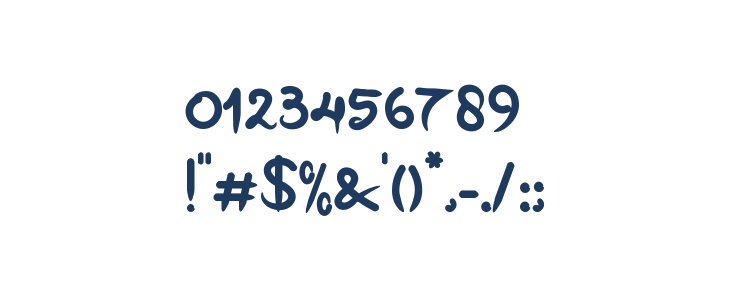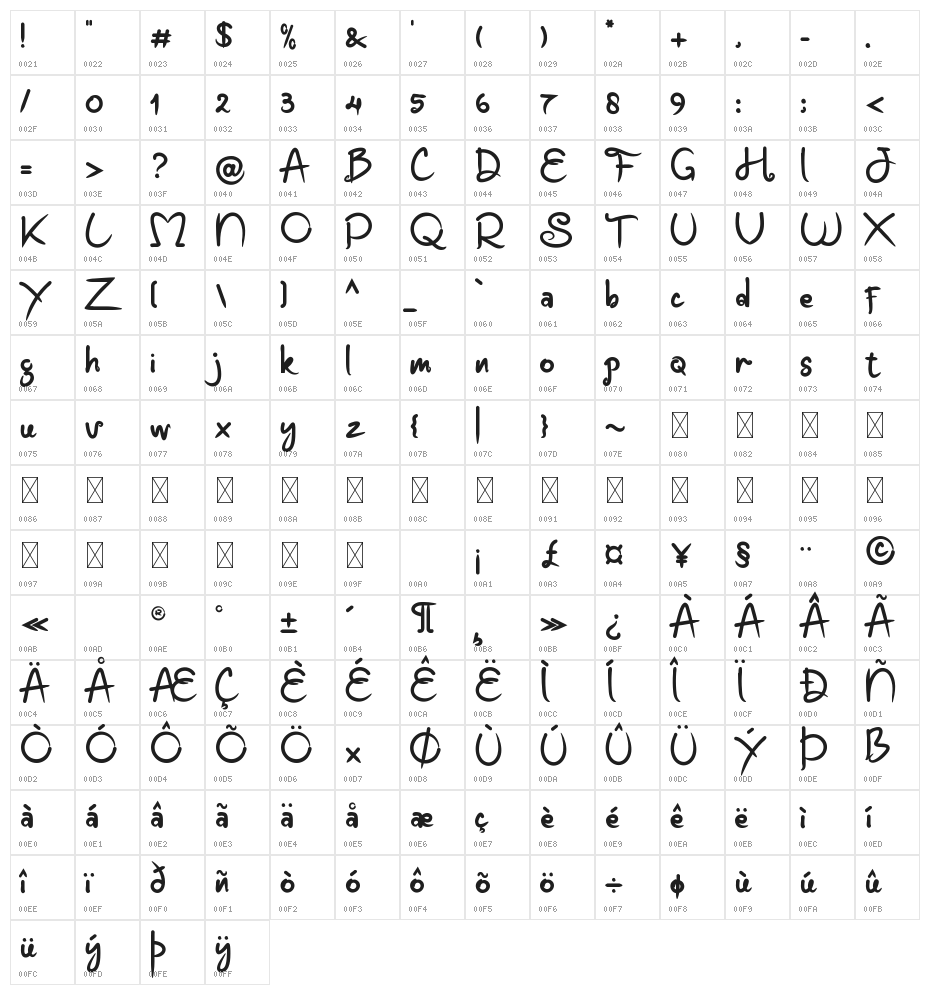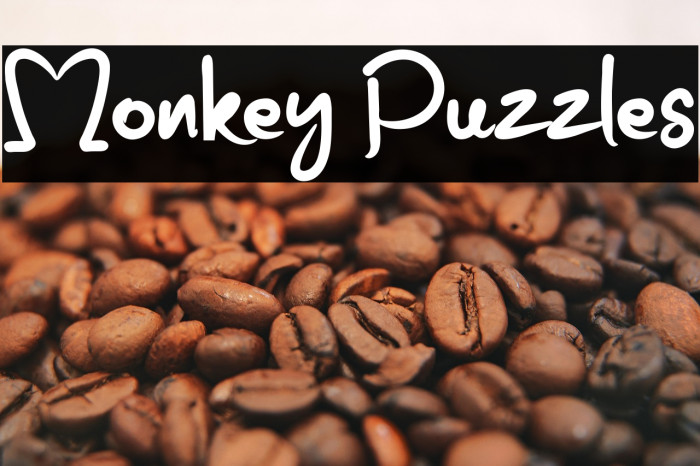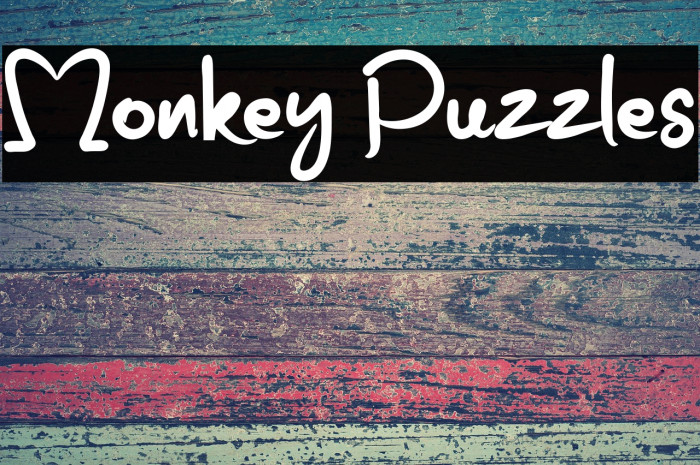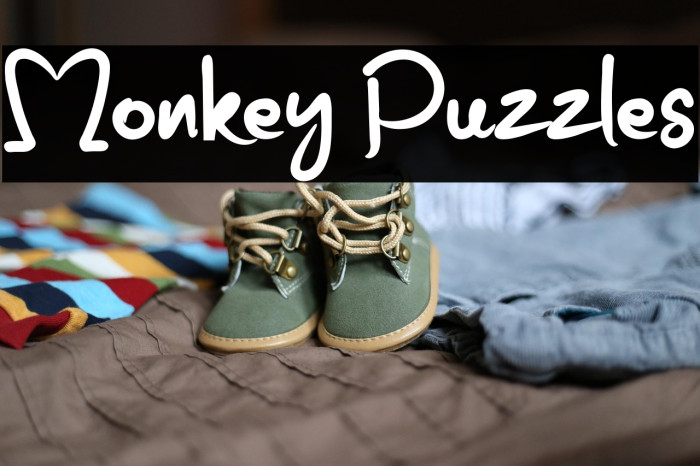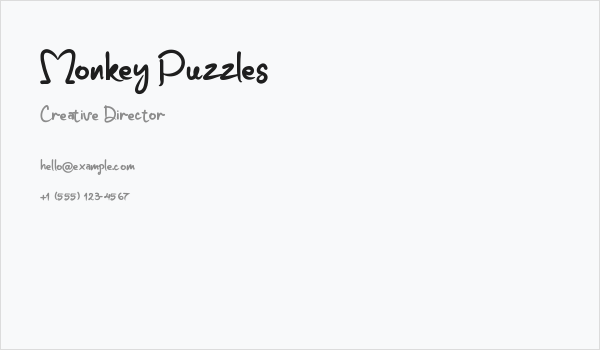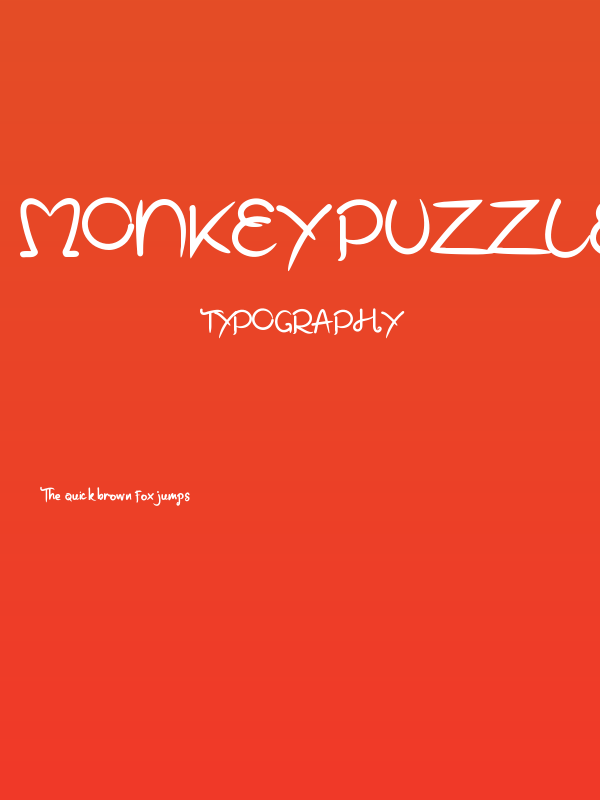
Monkey Puzzles Font
Monkey Puzzles Description
This playful and whimsical font features a lively, handwritten style with a unique flair. The uppercase letters are characterized by their tall, narrow forms and slightly exaggerated curves, giving them a dynamic and energetic appearance. The lowercase letters maintain this playful aesthetic, with some letters featuring loops and swirls that add to the overall charm. The numbers are bold and consistent with the font's lively style, making them easily readable. Special characters are creatively designed, maintaining the font's quirky and fun personality. This font is perfect for projects that require a touch of creativity and playfulness, such as children's books, playful branding, or artistic posters.
| Proposed Projects | Ideal for children's books, playful branding, artistic posters, and creative invitations. |